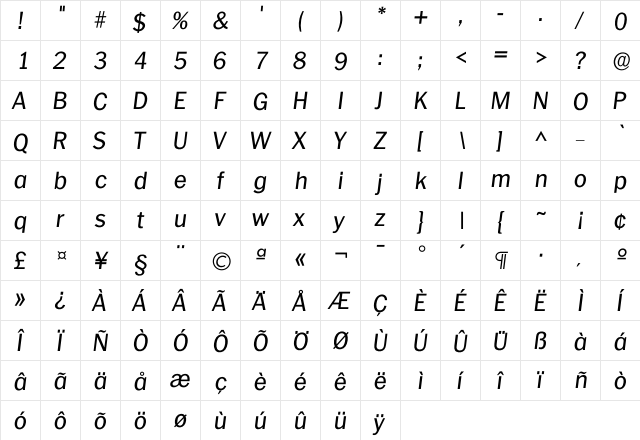
Iplymouth Regular
Design Context for Iplymouth Typeface
Iplymouth is a composed and adaptable typeface that performs quietly and consistently across a wide range of design contexts.